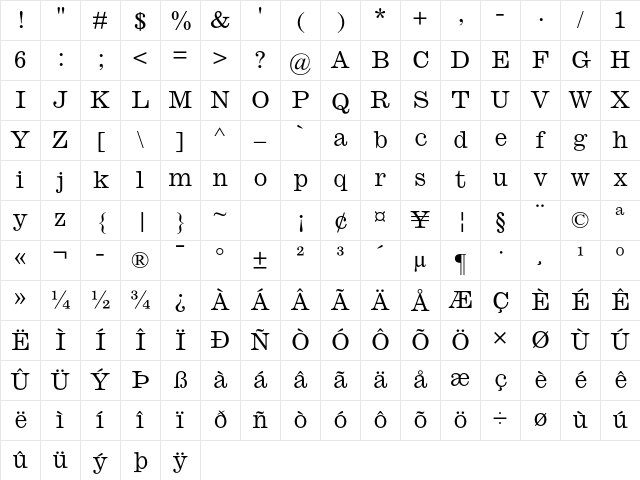
Ionic MT Std Regular
Ionic MT Std Family
Design Context for Ionic MT Std
Ionic MT Std is a composed and adaptable typeface that performs quietly and consistently across a wide range of design contexts.
Pro Tip: Use Ionic MT Std in both headline and body roles to test its range before committing to a single application.